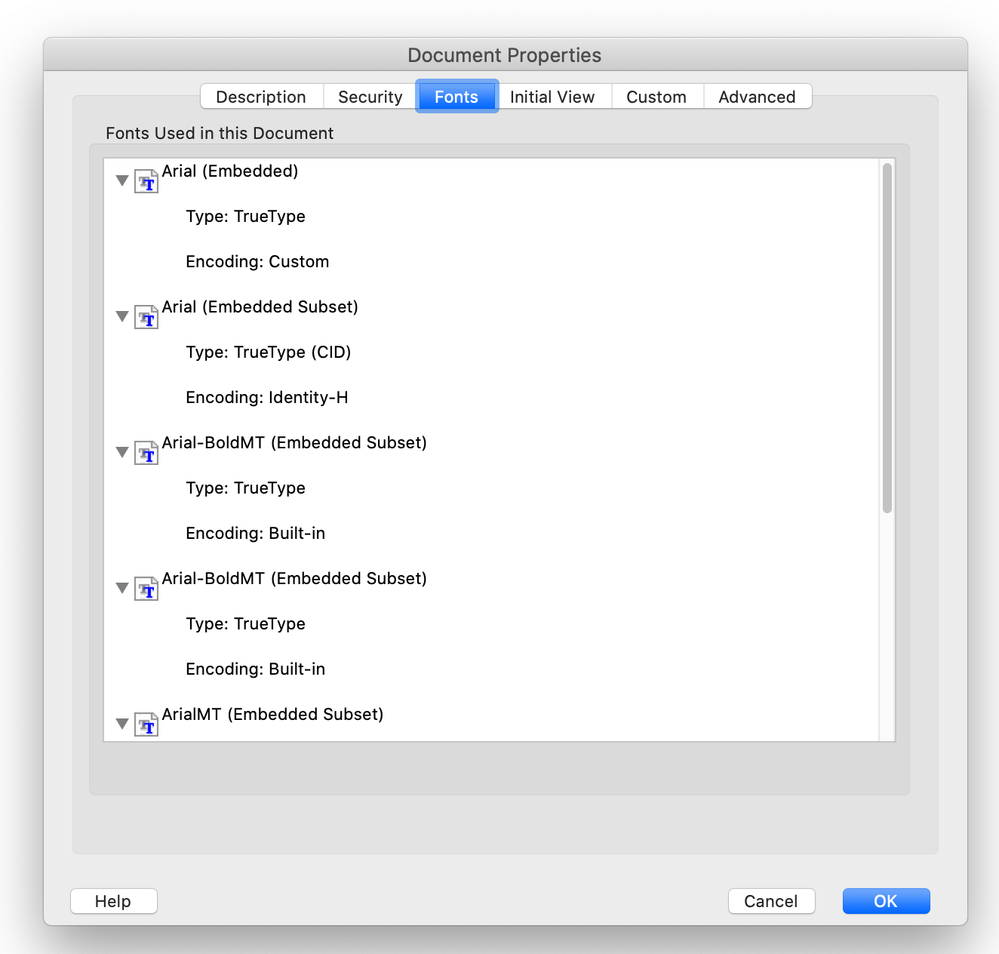
I have a PDF where I have added form fields in Acrobat Pro DC and I've set the font in the form fields settings to be Arial.
The form fields are being populated in a Java program, but for some reason the program throws an error when the font is Arial, but it works fine when the font is for example Helvetica.
I suspect it has something to do with the font encoding.
That's really something for the author of the Java program. Certainly, there are many different ways a font might appear in a PDF, and different encodings is all part of it.
Ok. But the error seems to only occur, when the text includes special characters for example "ð".
But Helvetica handles the special characters just fine.
When choosing a font for the form field, the list of fonts seems to be grouped by horizontal lines (see attached screenshot). Are they grouped in types of encodings or something? I've tried all the fonts in the top group (where Helvetica is) and they all work fine. I haven't tried all the other ones, but all the other ones that I've tried outside of that group, don't work.
When using Arial (and many of the other ones), the error in my program says:
"U+00F0 is not available in this font's encoding: MacRomanEncoding with differences".
"U+00F0" is the letter "ð". What type of encoding do the fonts in the top group have (e.g. Helvetica) and is there any way to use a different encoding with Arial to make it work?
Is the font Arial full embedded?
I'm not sure. How can I check/do that?
If the form is edited in Acrobat to set the font, then (if it is not Type 1, or protected) it is fully embedded.
So if this is the case then there is no issue with the font.
The likely culprit is poor font handling in the Java Program. This is supported by the fact that Helvetica works. Helvetica is a Type 1 font and does not require embedding. It's built into Acrobat.
So you have two solutions:
1) Fix the Java Program
2) Stick to Type 1 fonts.
Ok. The course of action was, that I received a Word document, which I saved as a PDF. Then I added form fields to that PDF in Acrobat Pro DC and selected Arial as the font for each of the form fields (see screenshot above) in Text Field Properties > Appearance.
But when filling out the form fields in Acrobat (not in the Java program) with no special characters, the Document Properties > Fonts looks like this:
But when filling it out with some special characters, it looks like this:
Never use Arial. It looks OK but it is exactly the same as Helvetica (for this purpose) and just adds hugely to the file size. That will at least make THIS problem go away -- but what do the makers of the Java app say?
A couple of points.
1) Form field Fonts are stored in a special location in the PDF and do not appear on this font listing. So the listing is irrelevant.
2) We've already established that is doesn't matter if the form field font is correctly stored in the PDF. The problem is the Java program.
My colleagues have made the Java program (or at least part of it) but it may be some component, that they're not able to change.
So assuming that changing the Java program is not an option, then using Type 1 fonts, such as Helvetica, seems to be the only way to make it work, right?
And Type 1 fonts work, because they're built into Acrobat and do not require embedding, correct?
How many Type 1 fonts are built into Acrobat? Is it the 14 fonts in that top group of the very first screenshot I posted?
"my colleagues have made the Java program ...then using Type 1 fonts, such as Helvetica, seems to be the only way to make it work, right?" How can we POSSIBLY know what your program does, how it does it, why it works, and what its limitations are? Sorry, you ask us to answer the impossible.
About fonts: the base 14 fonts are special. They are as listed in your screen shot (except that for some reason Adobe Pi replaces Zapf Dingbats, the real font name). They are special not because they are type 1 fonts, but because the font file does not need to be embedded. They can still be re-encoded, but usually will not be.
Of course you can't know how the program works. I'm just looking for some hail-mary guesses based on you guys' knowledge of Acrobat, PDFs, fonts and so on. My knowledge is evidently very limited in those areas.
One more question...there's no way to add other fonts to that list of "special" fonts or to make other fonts work/behave in the same way that those do? For example so Arial will behave the same way that Helvetica does in this case?
You don't seem to want to take even my simplest advice: don't use Arial. Why not?
(You cannot add to the list. These 14 fonts are listed in the official rules for PDF, and the list is included in every PDF viewer on perhaps billions of computers).
Ok. The reason is, that Arial is used in the design specifications. But we'll just have to pick another font or find some other solution with the program.
In Acrobat, when a font is selected for a form field, that font is fully embed into the PDF, unless there is some font feature that prevents embedding. For example, the font could be licensed in such a way that it can't be embedded. But there are other reasons fonts don't embed as well. I'd suggest you find out as much as you can about the Salish font.